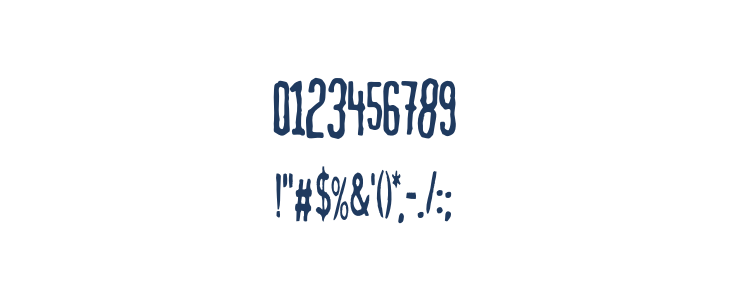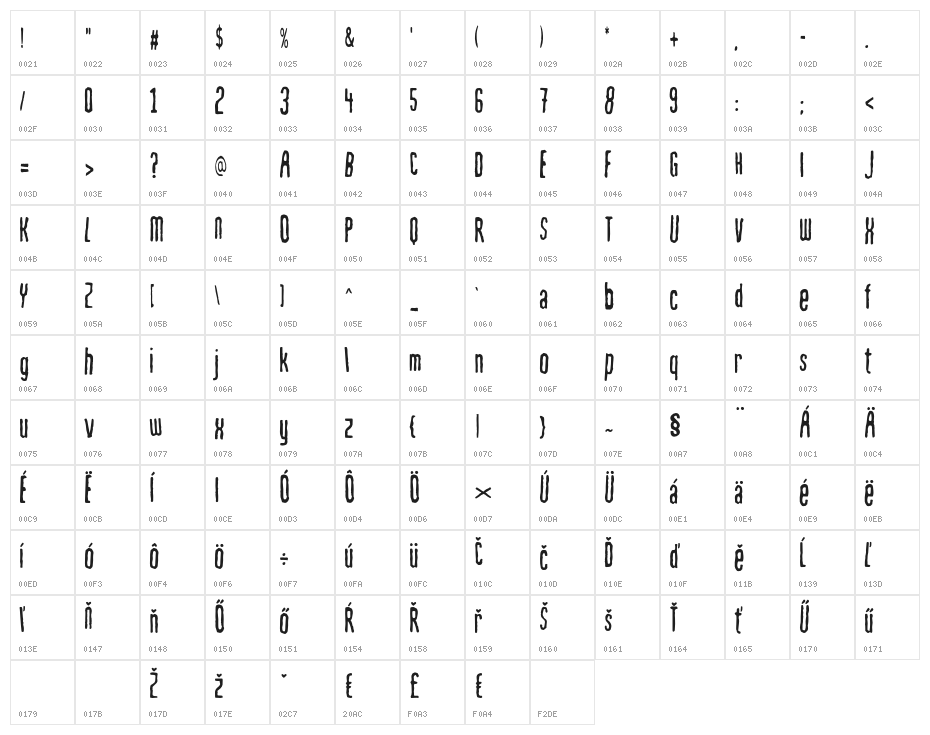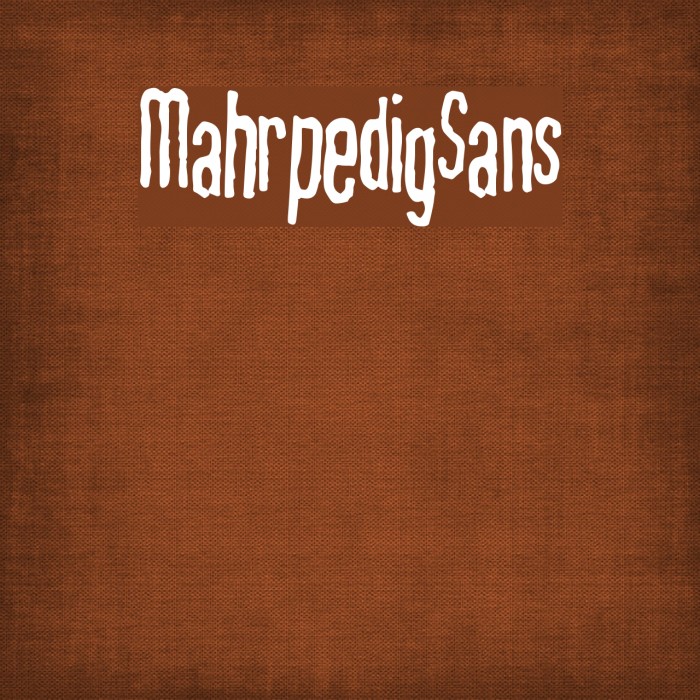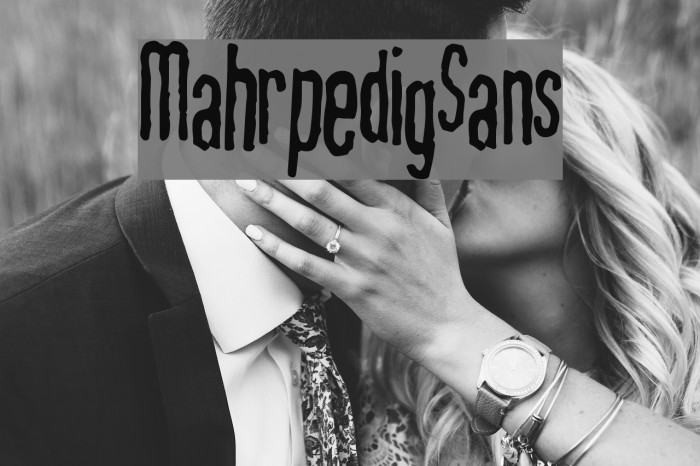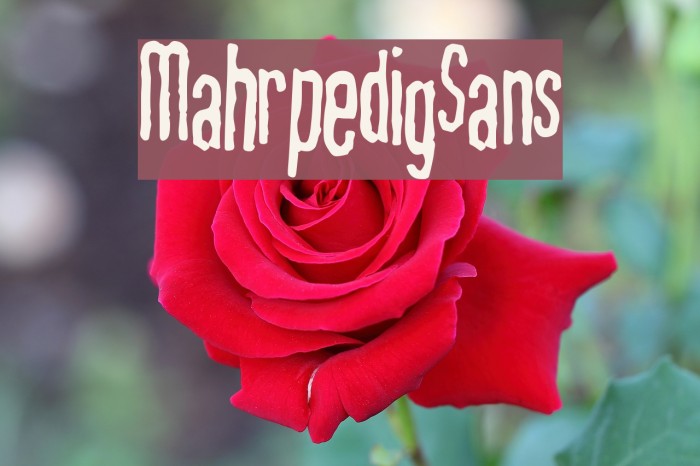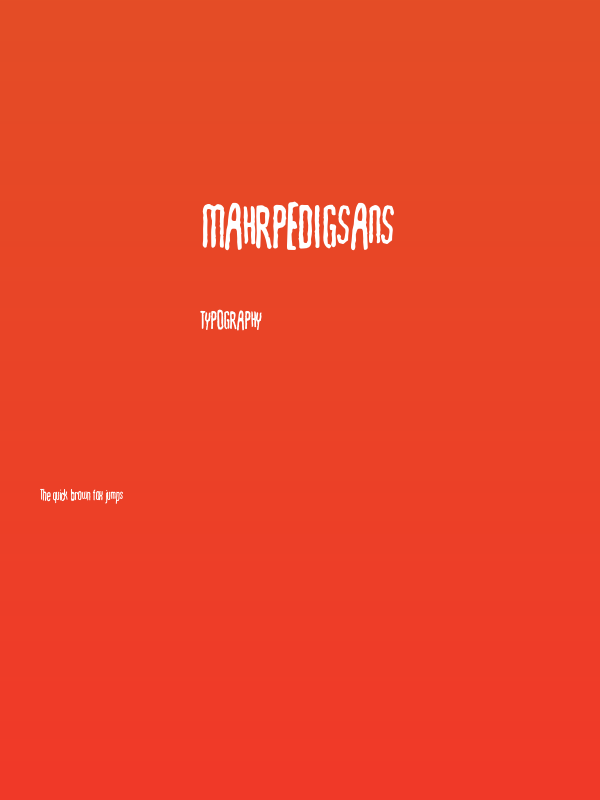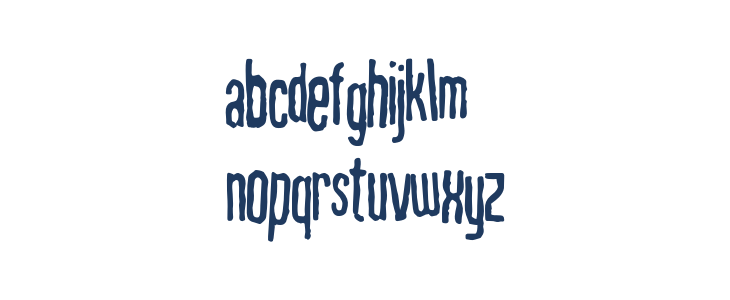
MahrpedigSans Font
MahrpedigSans Description
This font exhibits a unique and playful style with its irregular, hand-drawn appearance. The characters are elongated and slightly distorted, giving them a whimsical and artistic feel. The uppercase and lowercase letters maintain a consistent height, while the numbers and special characters follow the same quirky design. The strokes are uneven, adding to the font's charm and making it stand out in creative projects. Its distinctiveness makes it suitable for eye-catching designs where a casual and fun tone is desired.
| Overall Style | Whimsical |
| Proposed Projects | Ideal for children's book covers, creative posters, and playful branding materials. |